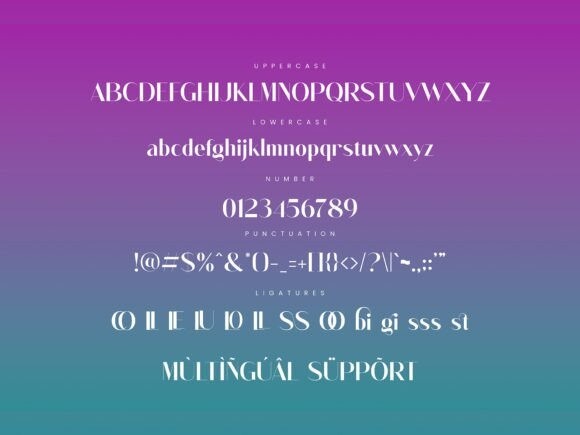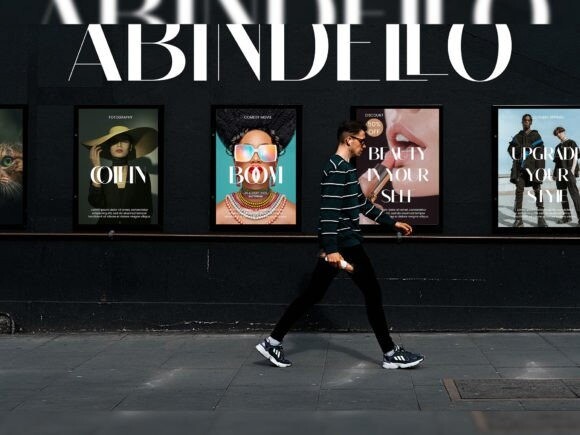
Abindello Font
Abundello Font is an elegant and bold serif font. Fall in love with its incredibly versatile style and use it to create gorgeous wedding invitations, beautiful stationary art, eye-catching social media posts, and much more.